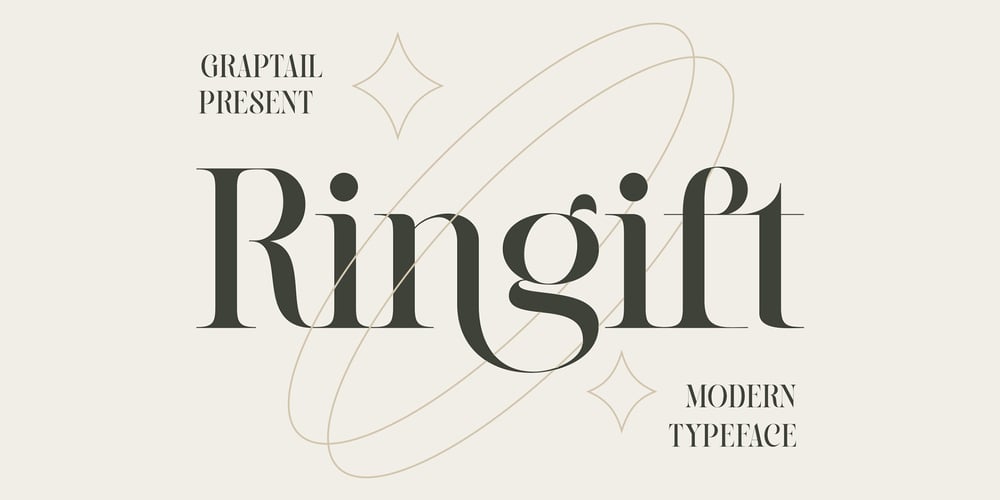
Ringift Font Family was designed by Teuku Deky Firnanda and published by Graptail. Ringift contains 1 styles and family package options. Ringift is a Modern Serif Typeface that gives a romantic feel to every curve. With 21 Ligatures which are included, it is very helpful in creating the title of each of your project such as Logos, greeting cards, quotes, posters, branding, business cards, postcards, movie titles, blog headers, art quotes, typography, magazines and more.